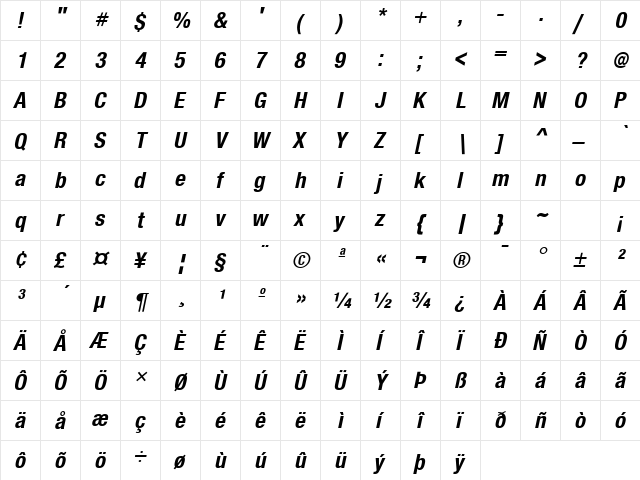
Sans Condensed BOLDITALIC Font Preview
Design Context for Sans Condensed Typeface
Sans Condensed takes a measured approach to typography — its balanced proportions and neutral character make it a reliable workhorse for both digital and print work. The slanted form adds forward momentum and visual energy. The heavy weight commands attention and anchors typographic hierarchies. The condensed width makes it efficient for tight spaces without sacrificing legibility.
Pro Tip: Try Sans Condensed for annotation and caption copy alongside an upright companion — the contrast in angle creates a dynamic but ordered typographic system.